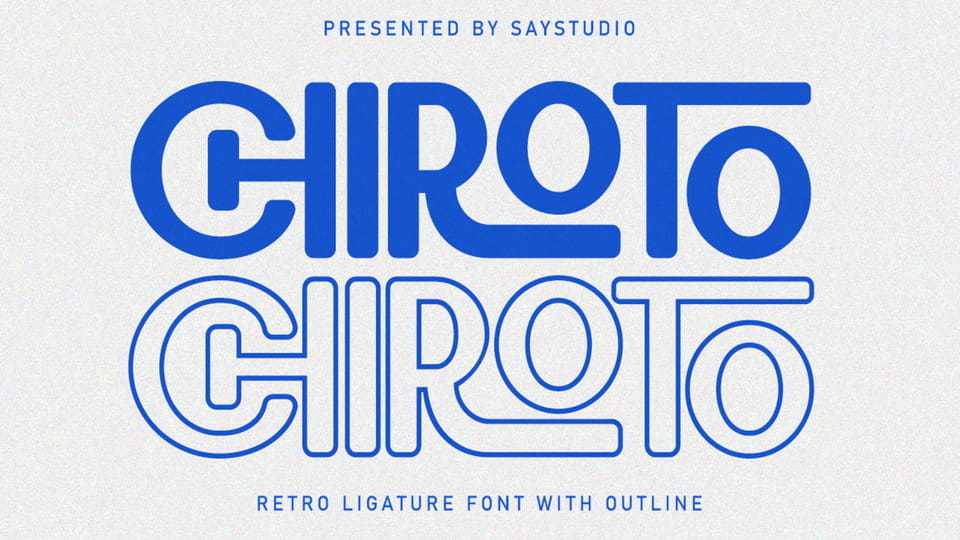
Download Chiroto font, a retro ligatures font inspired by the vibrant and nostalgic vibes of the 1980s retrowave culture. This font encapsulates the energetic spirit of the era with its striking lines and retro aesthetics.